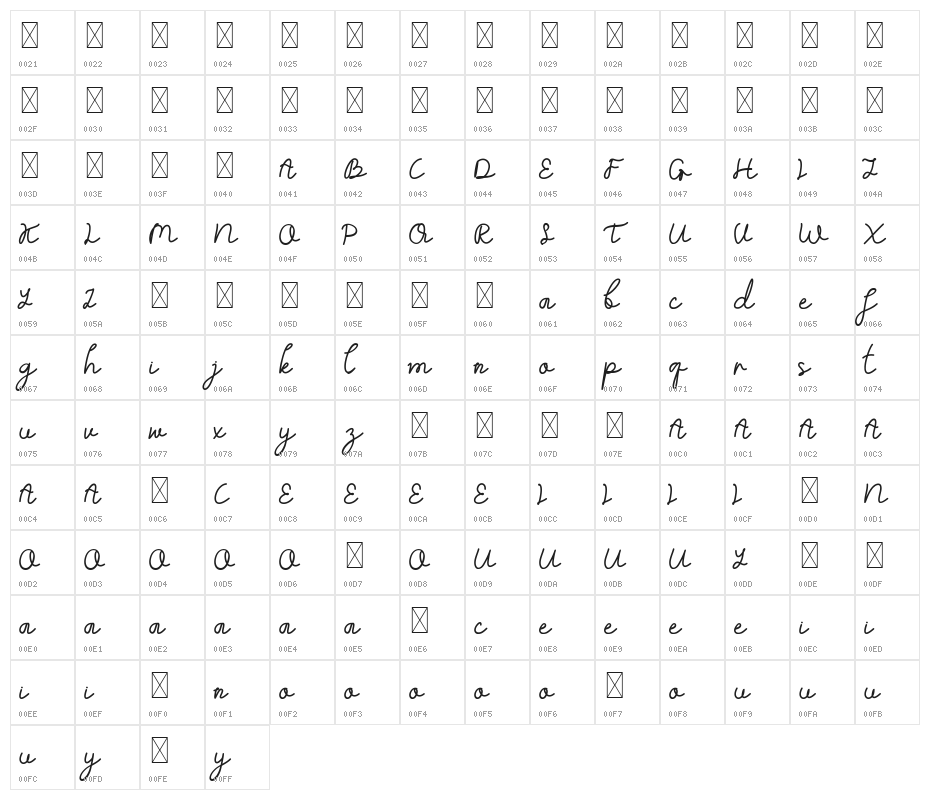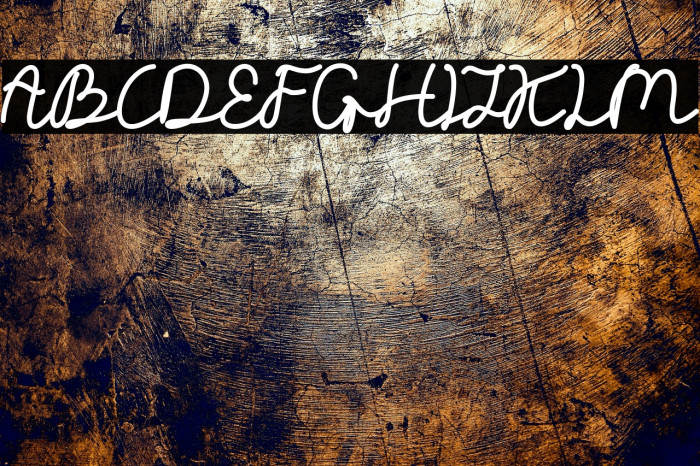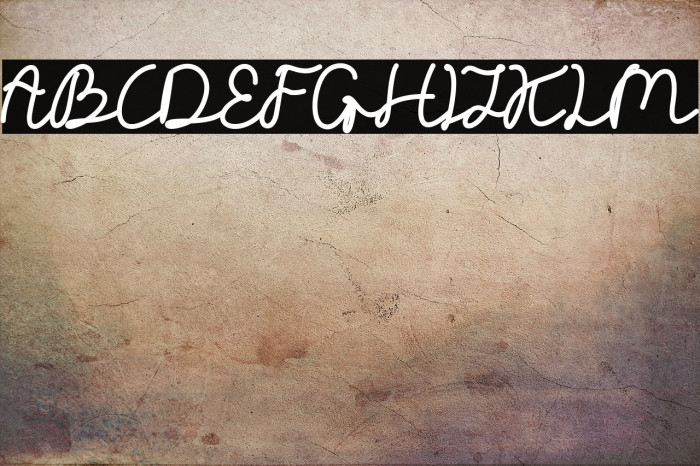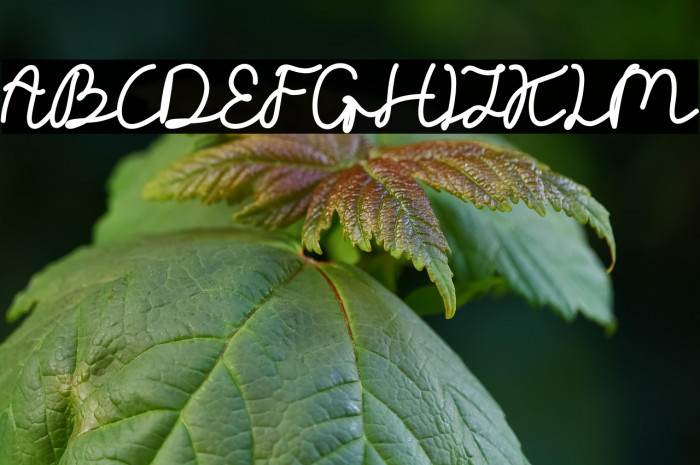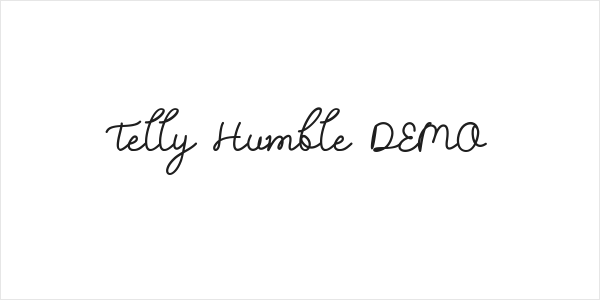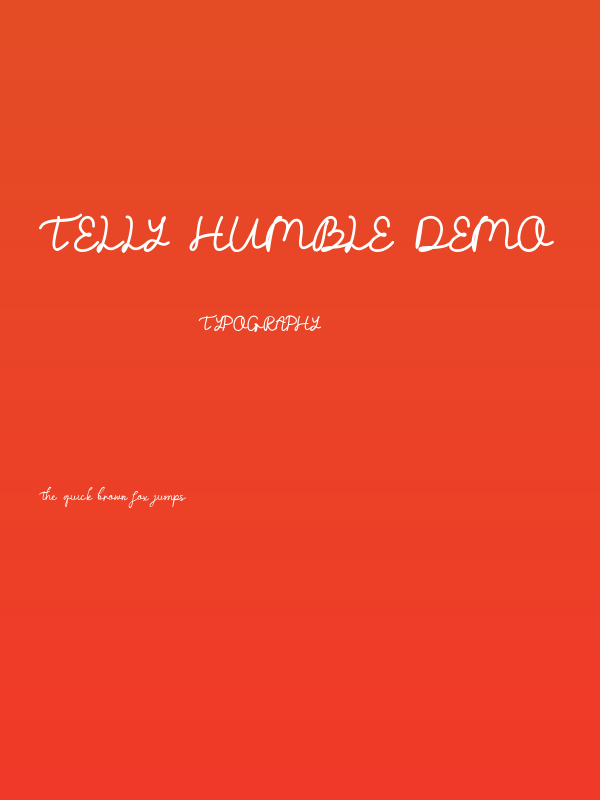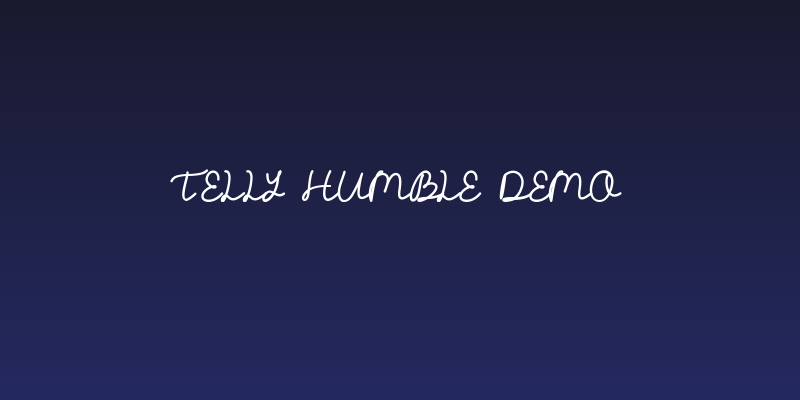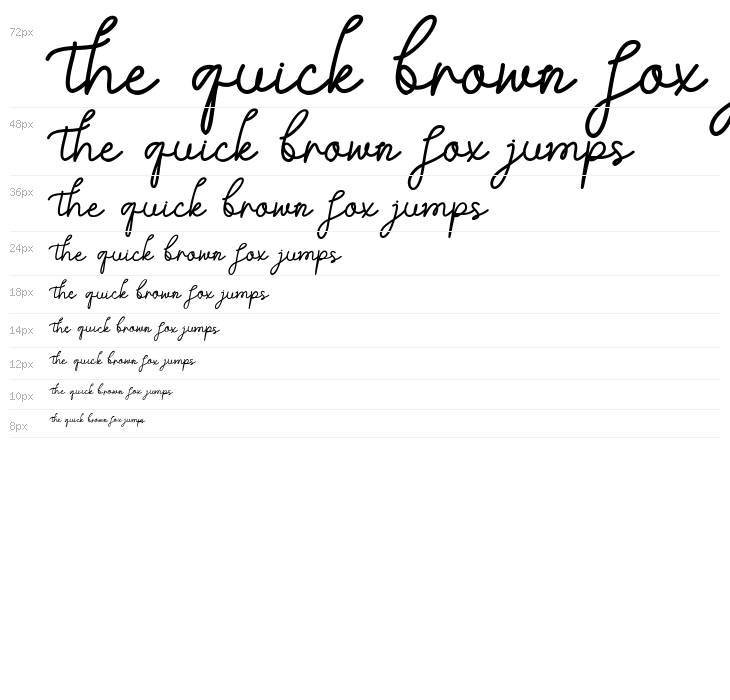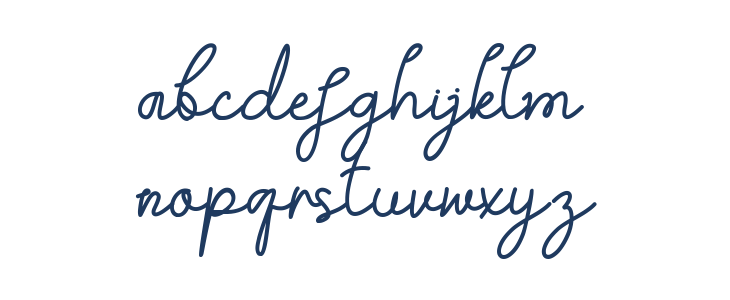
Telly Humble DEMO Font
Telly Humble DEMO Description
This font features a flowing, cursive style with a handwritten appearance. The letters are interconnected, creating a seamless and elegant look. The uppercase letters maintain a consistent height, while the lowercase letters exhibit a playful variation in height and slant. The strokes are smooth and fluid, with a medium contrast between thick and thin lines. This font exudes a sense of sophistication and charm, making it suitable for projects that require a personal touch. The overall style is both classic and modern, appealing to a wide range of design aesthetics.